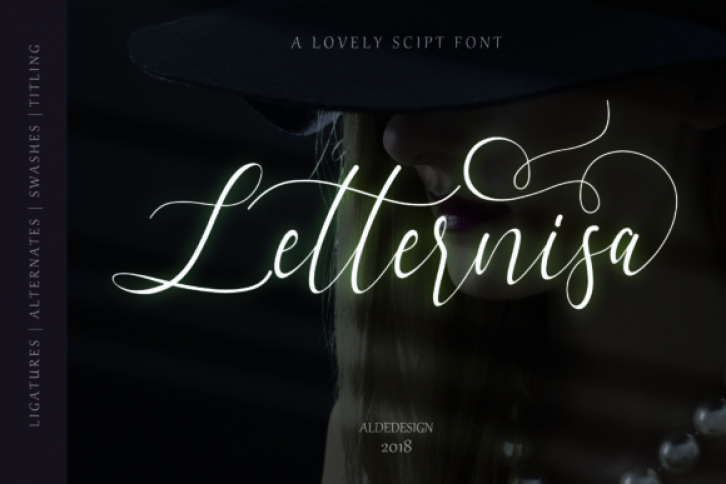
Letternisa is a stylish script font with gorgeous swashes, titling, and alternates. It is easy to use and will give your design a elegant and modern touch.